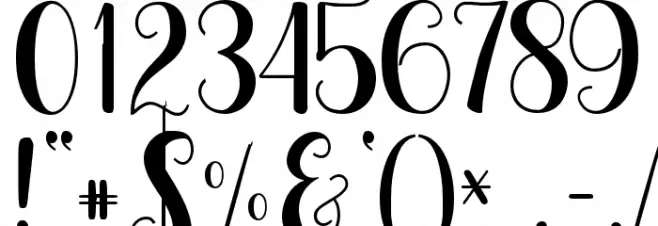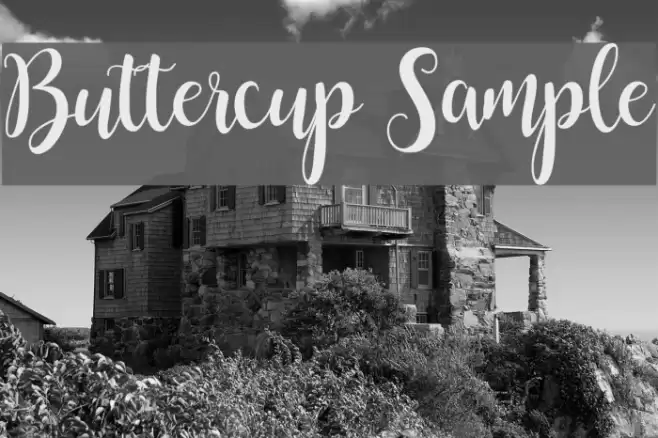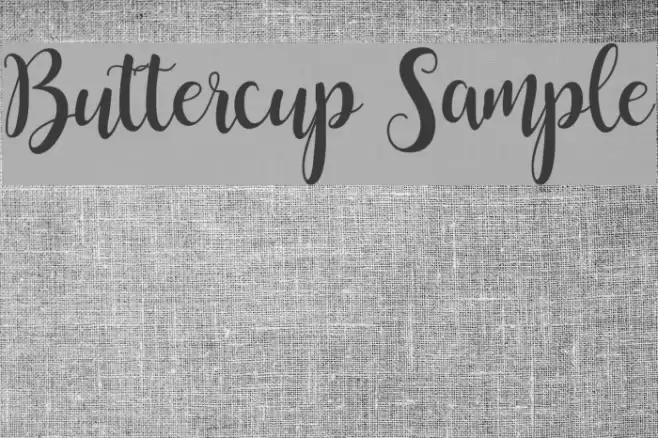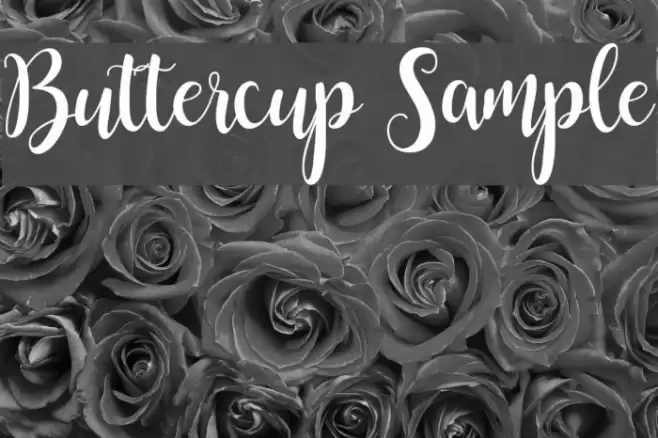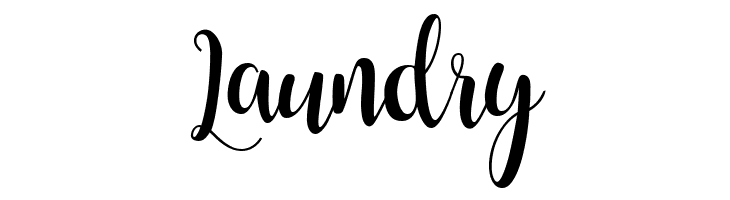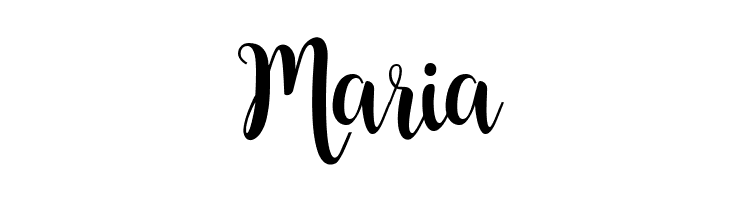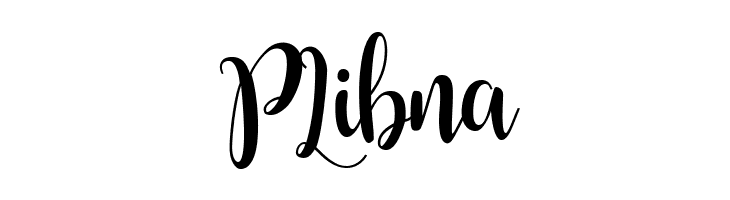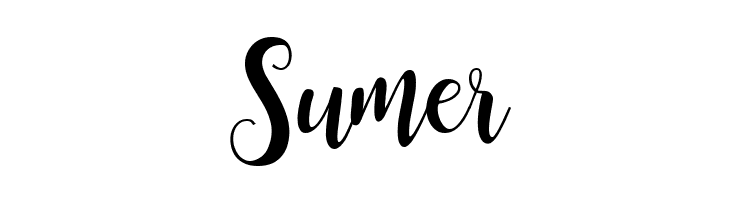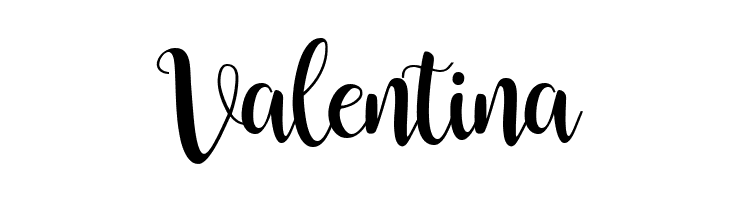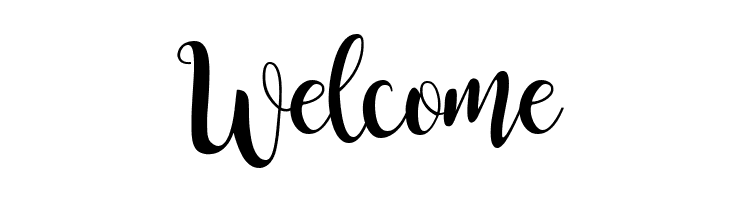
Buttercup Sample Font
Buttercup Sample Description
This font features a flowing, cursive style with elegant loops and swashes, giving it a handwritten appearance. The uppercase letters are bold and sweeping, while the lowercase letters maintain a consistent fluidity, enhancing its script-like quality. The numerals are distinct, with a playful yet sophisticated design. Special characters are creatively integrated, maintaining the overall aesthetic. The font's design is both decorative and functional, making it suitable for a variety of creative applications.
A flowing, cursive script font with elegant loops and swashes from Uncategorized fonts.
• Proposed Projects: Ideal for wedding invitations, greeting cards, branding, and logo design.
• Contrast: Medium
• Overall Style: Decorative
• Use Case: Logos, Headlines, Invitations